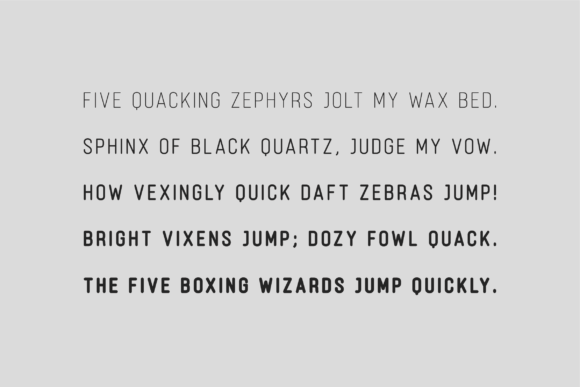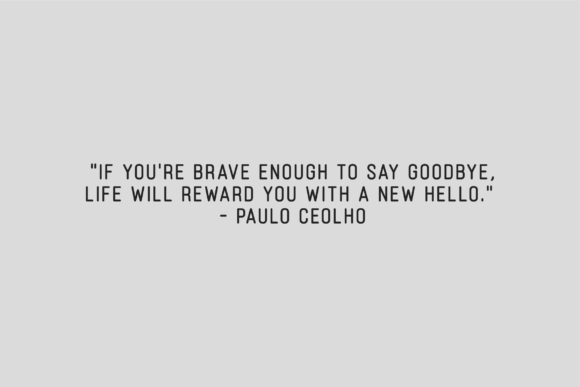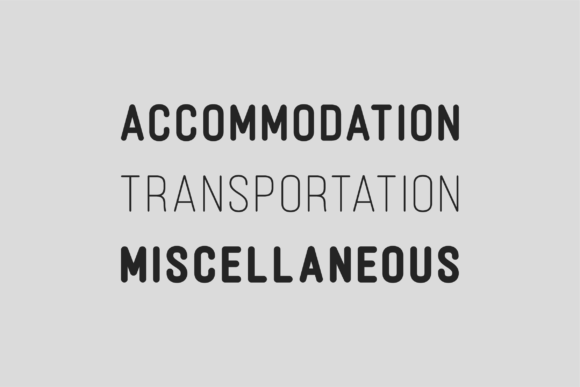
Introduction to Korqline Rounded Font
Have you ever stared at a blank design canvas, waiting for inspiration to strike? That’s exactly where I found myself one evening, searching for the perfect font to elevate my next creative project. It wasn’t until I stumbled upon the Korqline Rounded Font that everything clicked into place. Its unique blend of modernity and luxury left me breathless, and I knew I had to share it with the world.
As a valuable design resource, the Korqline Rounded Font is an absolute game-changer. With its 5 distinct weights and seamless transitions between styles, it’s the perfect addition to any project. Whether you’re designing a logo, packaging, or headline, this font’s rounded edges and smooth curves will add a touch of sophistication and playfulness that’s hard to resist.
Key Features of Korqline Rounded Font
- High-quality design resource suitable for creative projects requiring a unique and modern aesthetic.
- Korqline Rounded Font features a transparent background, allowing for seamless integration with various backgrounds and design elements.
- The font comes in two distinct styles: regular and bold, providing users with flexibility to choose the perfect fit for their creative project.
- Designed with a rounded aesthetic, Korqline Rounded Font adds a touch of sophistication and elegance to any design, making it an ideal choice for branding and typography projects.
- The font’s resolution is high enough to ensure crisp and clear rendering on various devices and screens, including print and digital formats.
Honest Review: Korqline Rounded Font
I recently stumbled upon the Korqline Rounded Font, and I’m excited to share my honest review with fellow designers. As a design resource enthusiast, I’m always on the lookout for high-quality fonts that can elevate my creative projects.
- Unique, rounded design that adds a touch of sophistication to any project
- Wide range of styles and weights to suit various design needs
- High-quality design that can be used for both digital and print media
- Not ideal for use in extremely small font sizes, where the rounded edges may become distorted
Overall, I’m impressed with the Korqline Rounded Font’s versatility and high-quality design. While it may have some limitations, it’s a great addition to any designer’s toolkit. With its unique rounded design and wide range of styles, it’s perfect for creative projects that require a touch of elegance.
Tips for Getting the Most Out of Korqline Rounded Font
1. Use Korqline Rounded Font on a transparent background to create a modern and sleek design.
3. Use Korqline Rounded Font in combination with other high-quality design resources to create a unique and eye-catching design.